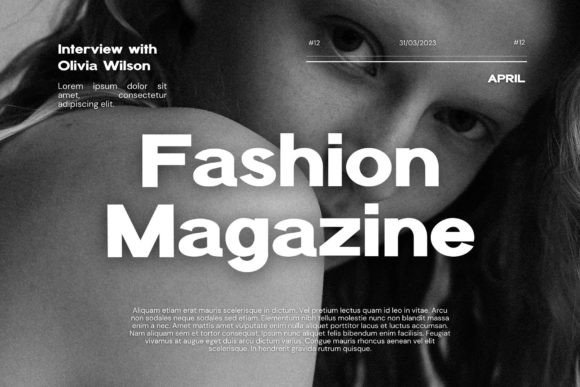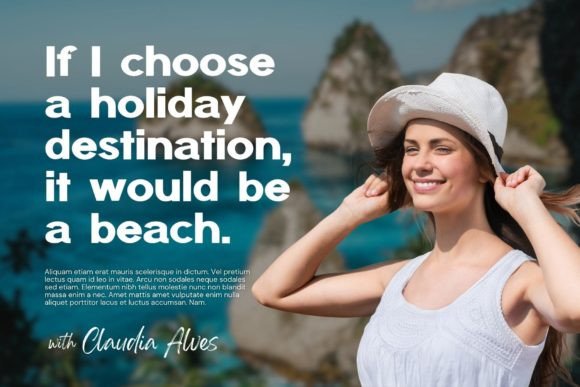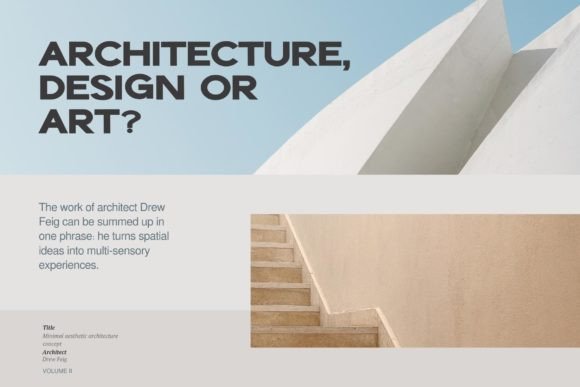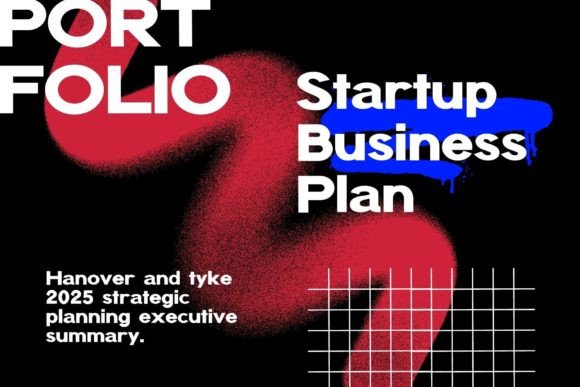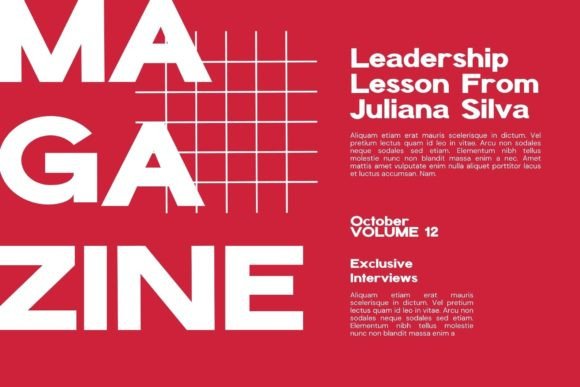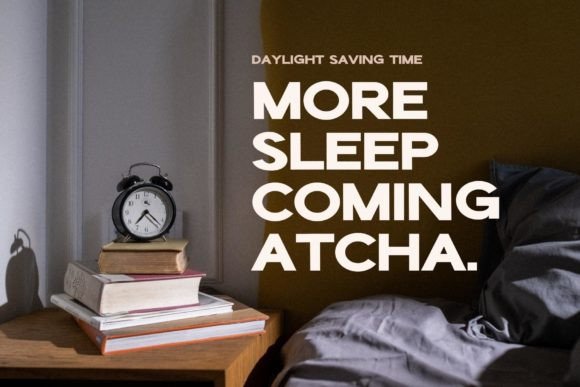
Gateway Heaven Font: Elevate Your Design with Modern Sophistication
In the world of typography, fonts play a crucial role in conveying the tone and aesthetic of a design project. For designers and crafters looking for a modern and cool sans serif font that exudes contemporary style and sophistication, Gateway Heaven is an excellent choice. This sleek and professional font is perfect for branding, logos, and editorial design, making it an ideal addition to any design project.
Clean Lines and Sleek Letterforms
Gateway Heaven’s clean lines and sleek letterforms are its defining features. The font’s minimalist approach creates a sense of simplicity and elegance, making it perfect for designs that require a professional and modern look. The clean lines also ensure that the font remains legible, even at smaller sizes, making it suitable for a wide range of applications.
Perfect for Branding, Logos, and Editorial Design
Gateway Heaven’s versatility makes it an excellent choice for branding, logos, and editorial design. The font’s modern and sleek aesthetic commands attention and leaves a lasting impression, making it perfect for:
- Branding: Create a strong and recognizable brand identity with Gateway Heaven’s unique and memorable font.
- Logos: Design a professional and modern logo that stands out from the crowd with Gateway Heaven’s sleek letterforms.
- Editorial Design: Elevate your editorial design with Gateway Heaven’s clean and sophisticated font, perfect for magazines, newspapers, and online publications.
Suitable for Both Digital and Print Applications
Gateway Heaven’s versatility extends to both digital and print applications. The font’s sleek and modern look remains consistent across different mediums, making it perfect for:
- Digital Applications: Use Gateway Heaven for website designs, social media graphics, and digital advertising to create a professional and modern online presence.
- Print Applications: Use Gateway Heaven for print materials such as brochures, flyers, and business cards to create a lasting impression.
Why Choose Gateway Heaven Font?
With so many fonts available, why choose Gateway Heaven? Here are a few reasons why designers and crafters love this modern sans serif font:
- Unique and Memorable: Gateway Heaven’s sleek and modern aesthetic makes it stand out from other fonts, ensuring that your design project is memorable and recognizable.
- Professional and Sophisticated: The font’s clean lines and sleek letterforms create a sense of professionalism and sophistication, perfect for designs that require a modern and elegant look.
- Versatile: Gateway Heaven is suitable for a wide range of applications, from branding and logos to editorial design and digital applications.
Tips for Using Gateway Heaven Font
To get the most out of Gateway Heaven, here are a few tips for using the font:
- Pair with Other Fonts: Gateway Heaven pairs well with other fonts, especially serif fonts, to create a visually appealing contrast.
- Experiment with Sizes: Experiment with different font sizes to create visual hierarchy and emphasize important information.
- Use for Headings and Titles: Use Gateway Heaven for headings and titles to create a modern and sleek look that commands attention.
Gateway Heaven is a modern and cool sans serif font that exudes contemporary style and sophistication. With its clean lines and sleek letterforms, it offers a sleek and professional aesthetic perfect for branding, logos, and editorial design. Its versatility makes it suitable for both digital and print applications, elevating any design project with its sleek and modern look. Whether you’re a designer or crafter, Gateway Heaven is an excellent choice for any design project that requires a modern and sophisticated font.